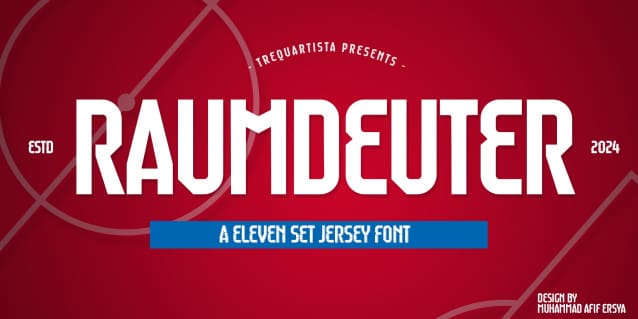
Raumdeuter Font
Raumdeuter Font, This bundle features strong, confident and powerful typefaces designed to work great with sports logos, club branding, apparel applications, labels and more.